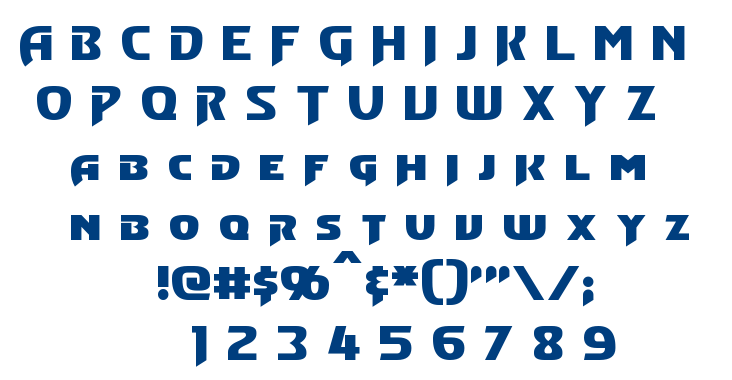
Tiny Small Medium Large Convoy font Neale Davidson Website Convoy.ttf Download 1065 downloads Freeware Category: Techno » Various TTF – Convoy Based on the logo for “Armada” and “Robots in Disguise”. Heavy glyph cleaning and removes the faction symbols. Character Map specimen sheet